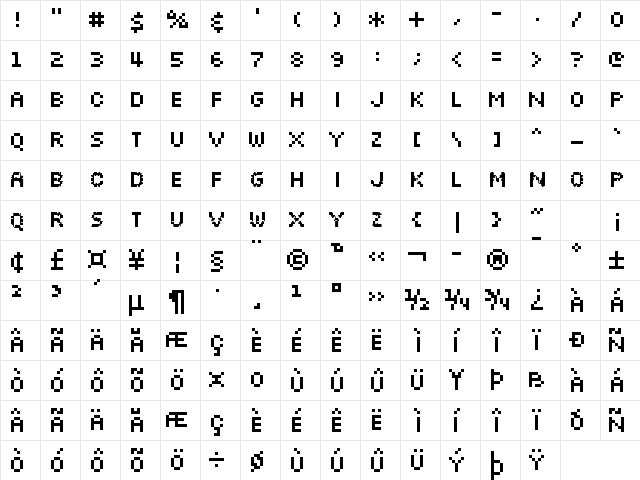
UF Silkscreen Remix E Regular Free Font
UF Silkscreen Remix E Regular
Foundry: Ultrafonts
Designer: Jason Kottke and TRUTH in Design.
Design Context for UF Silkscreen Remix E
UF Silkscreen Remix E is a composed and adaptable typeface that performs quietly and consistently across a wide range of design contexts.